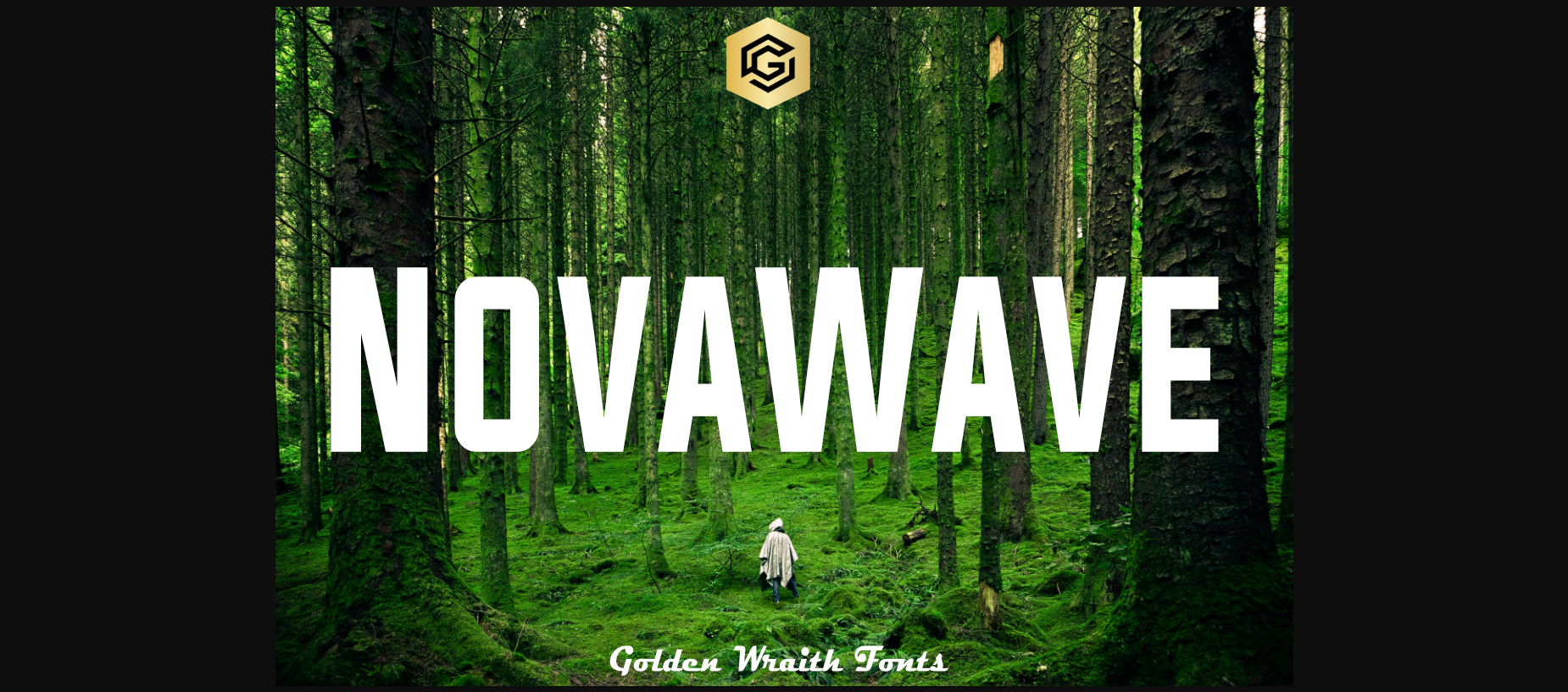
Novawave Font
About Novawave Font
“NovaWave” is a sleek and contemporary sans serif font that embodies modernity and innovation. With clean lines and a minimalist design, it adds a cutting-edge and dynamic touch to various projects. Ideal for digital interfaces, editorial layouts, and branding, “NovaWave” combines form and function seamlessly, offering clarity and a progressive style. This font captures the essence of modern design, making it a compelling choice for those seeking a bold and forward-thinking visual identity.